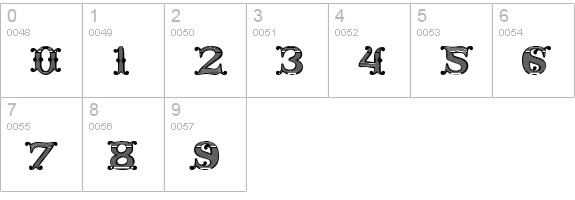
Taqueria Black Special is a maximum-weight, dramatic variant in the Taqueria typeface family \xE2\x80\x94 well suited to maximum-impact headlines, posters, and packaging.
Introducing Taqueria Black Special, a typeface that exudes a distinctive, bold character with a touch of elegance. This font is designed to captivate and engage, making it perfect for eye-catching headlines, logos, posters, and more. With its unique blend of sharp edges and smooth curves, Taqueria Black Special stands out from the crowd, commanding attention and leaving a lasting impression. Its versatility allows it to be used across various design projects, from modern and edgy to classic and sophisticated. But what truly sets Taqueria Black Special apart is its accessibility. This font is not only visually stunning, but it is also freely available to download at FontsMarket.com. Now, you can add this remarkable typeface to your design arsenal without breaking the bank. Whether you're a professional designer, a student, or simply someone with a creative vision, Taqueria Black Special empowers you to bring your ideas to life. Its clean lines and balanced proportions ensure readability, while its bold presence adds a touch of personality to your work. So why settle for ordinary when you can have extraordinary? Download Taqueria Black Special today from FontsMarket.com and unlock a world of possibilities. Enhance your designs with this exceptional font and let your creativity shine.